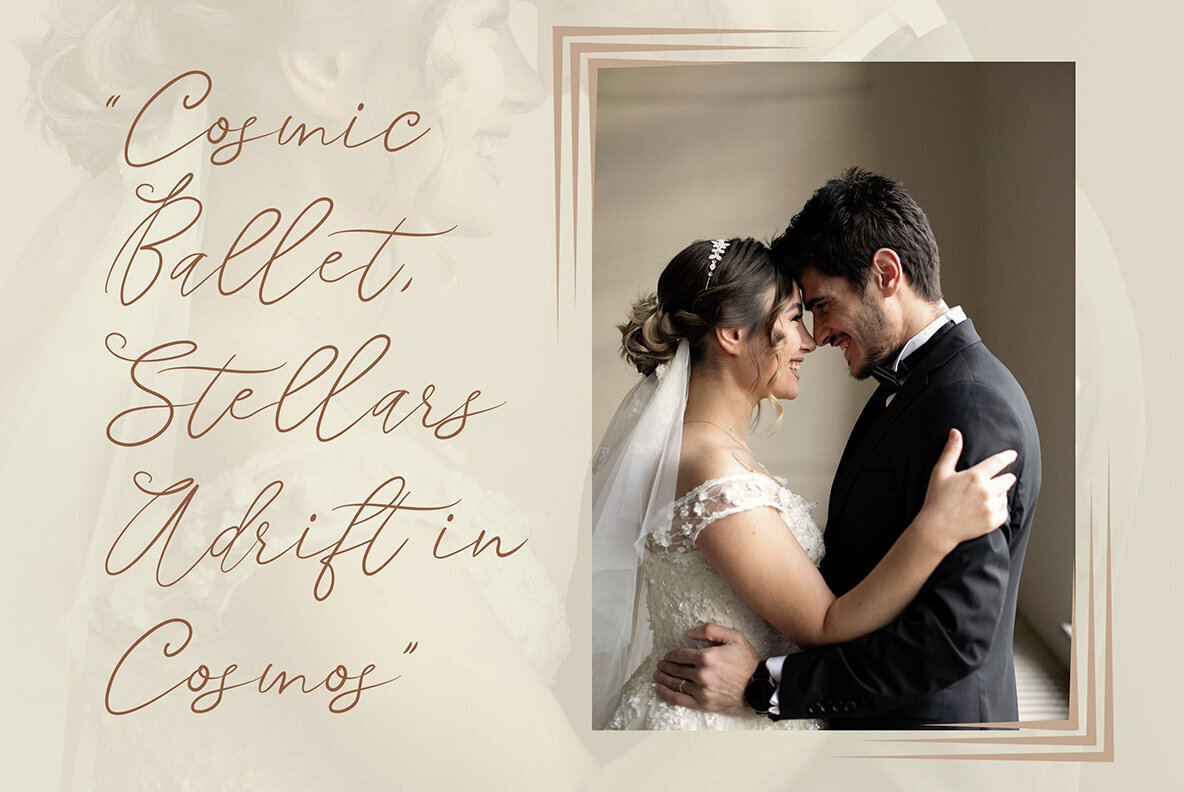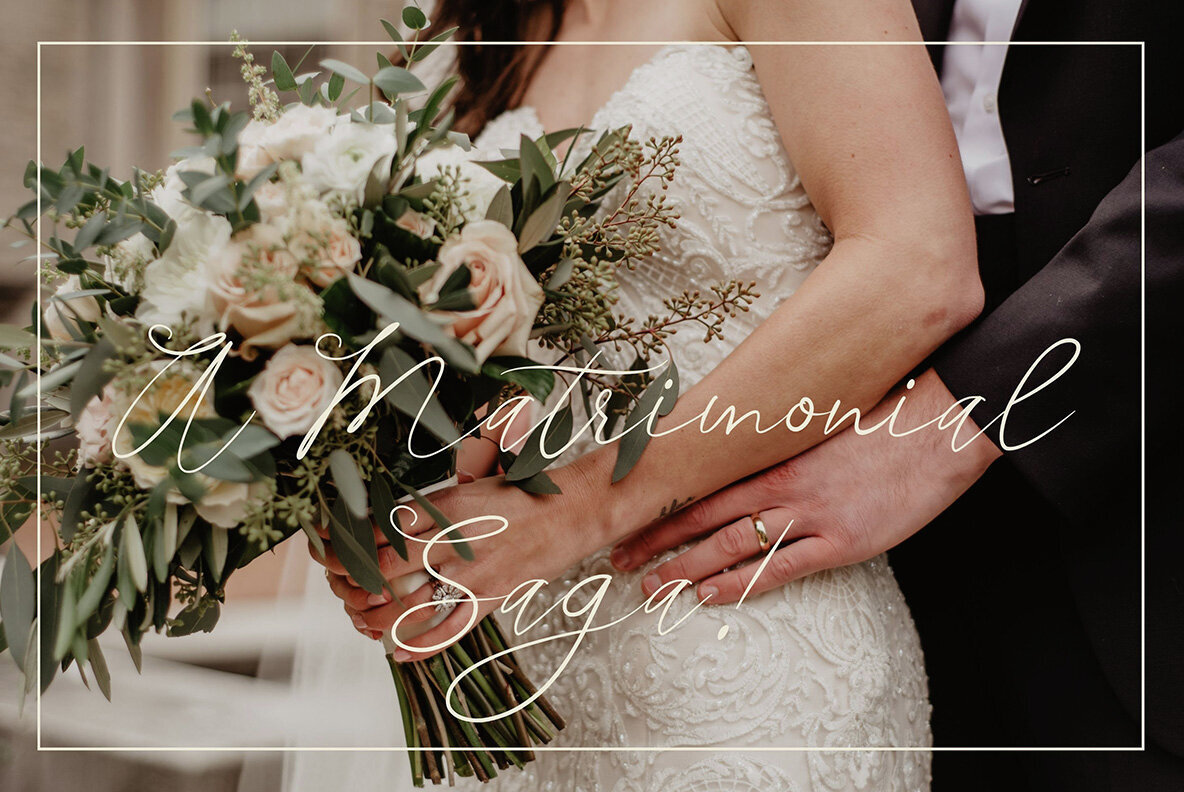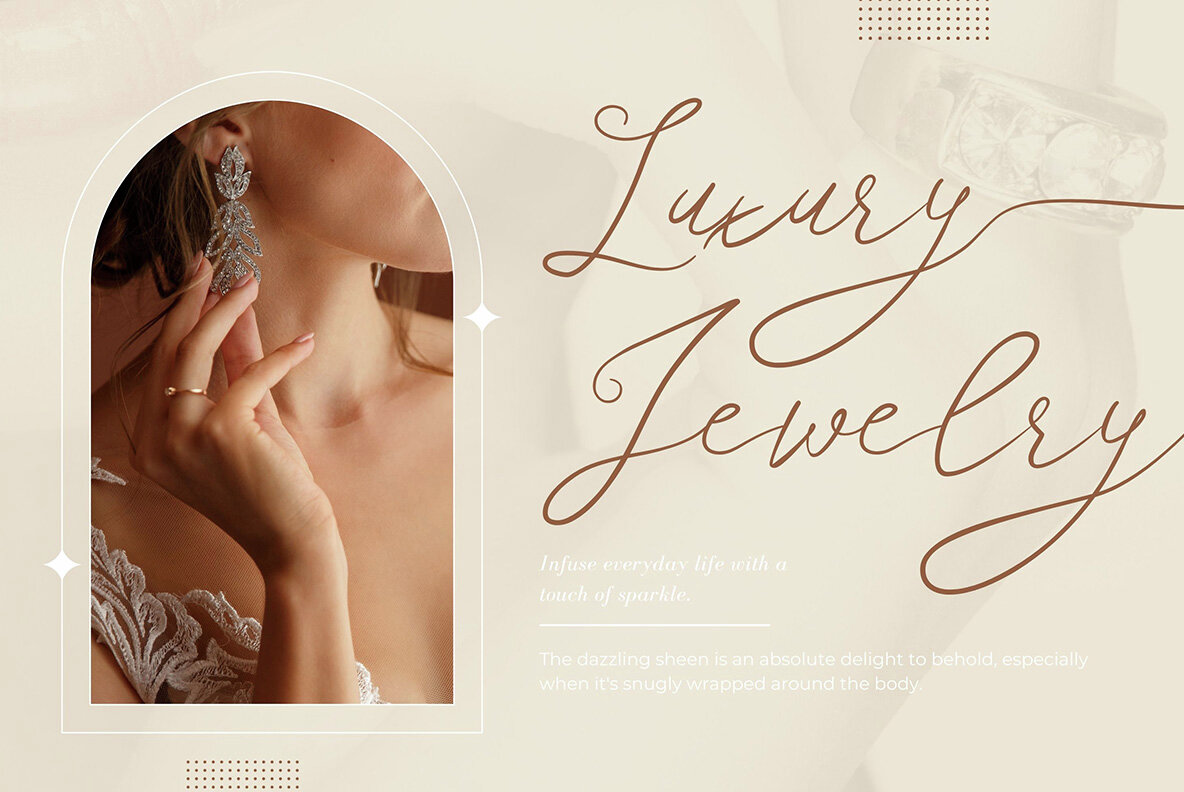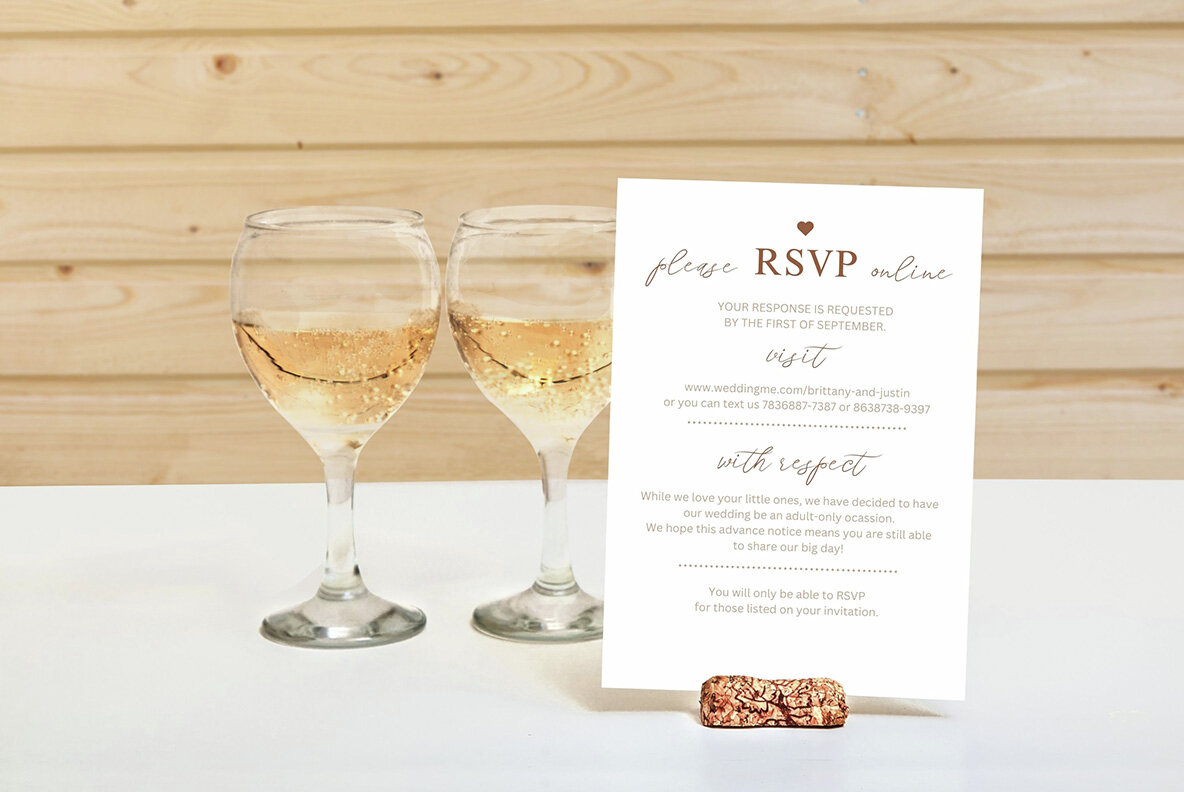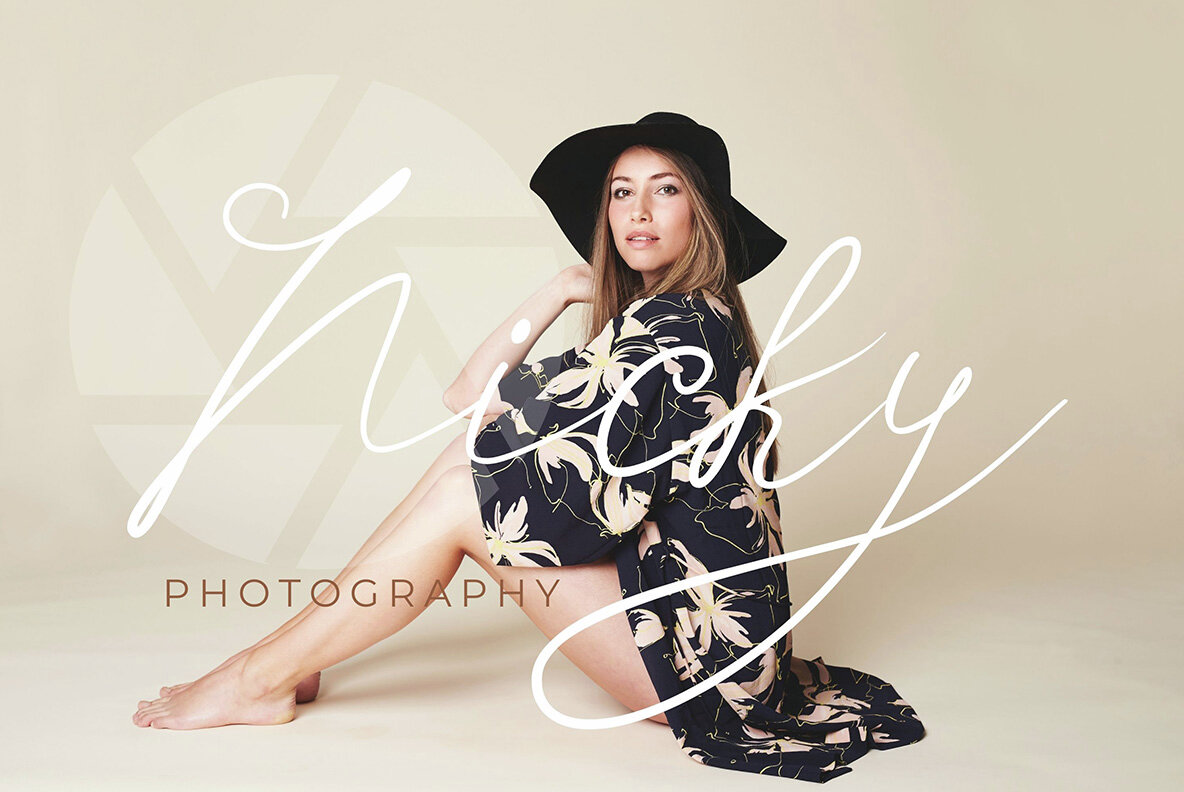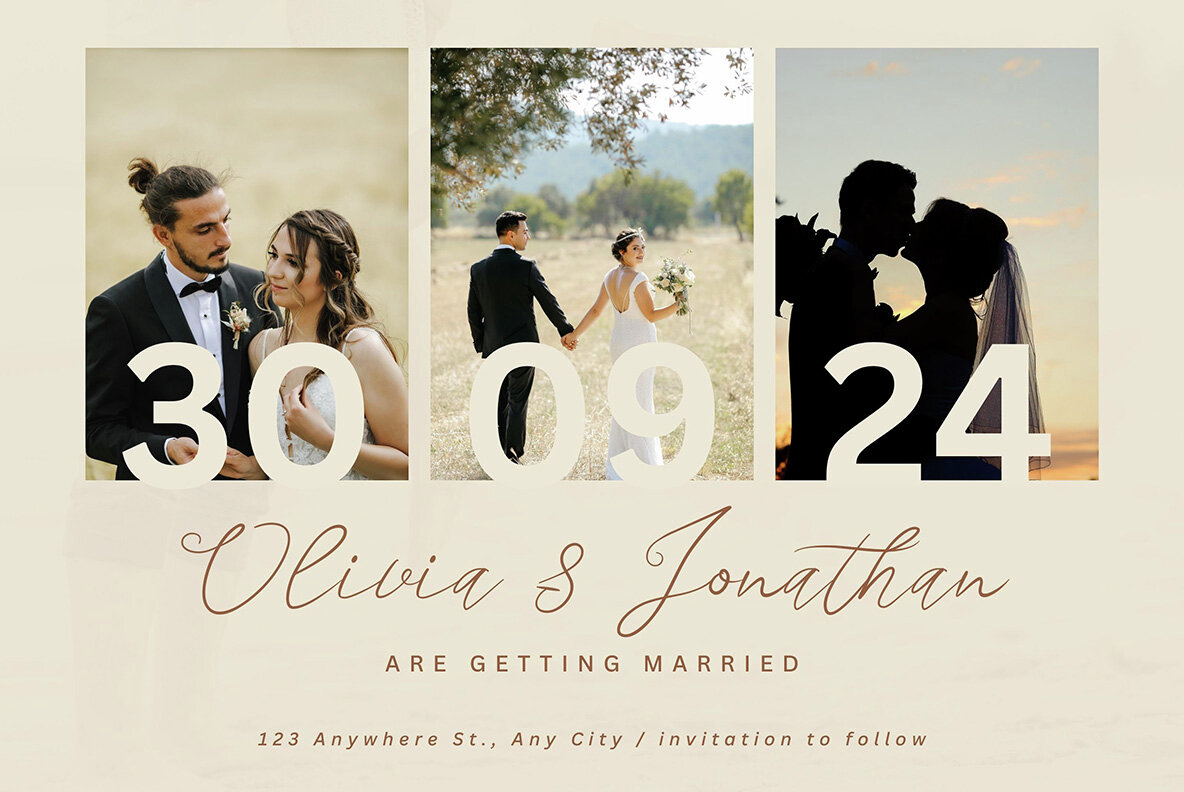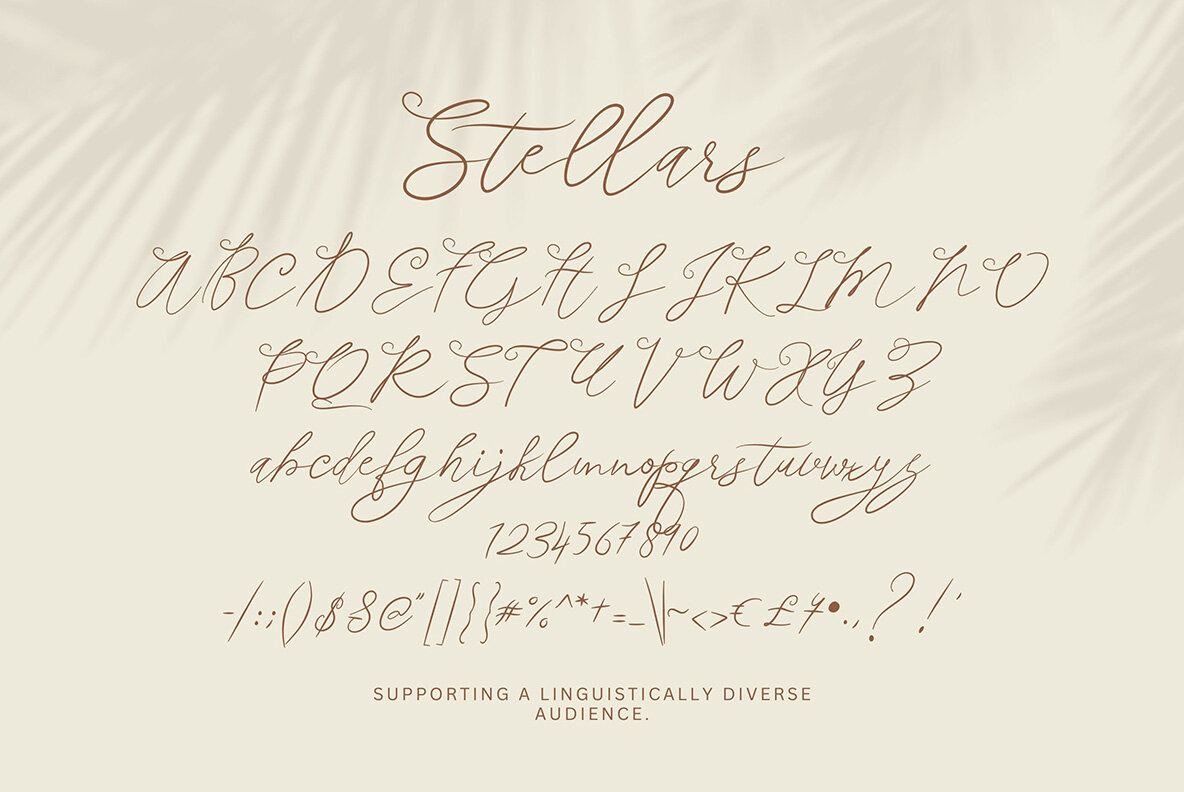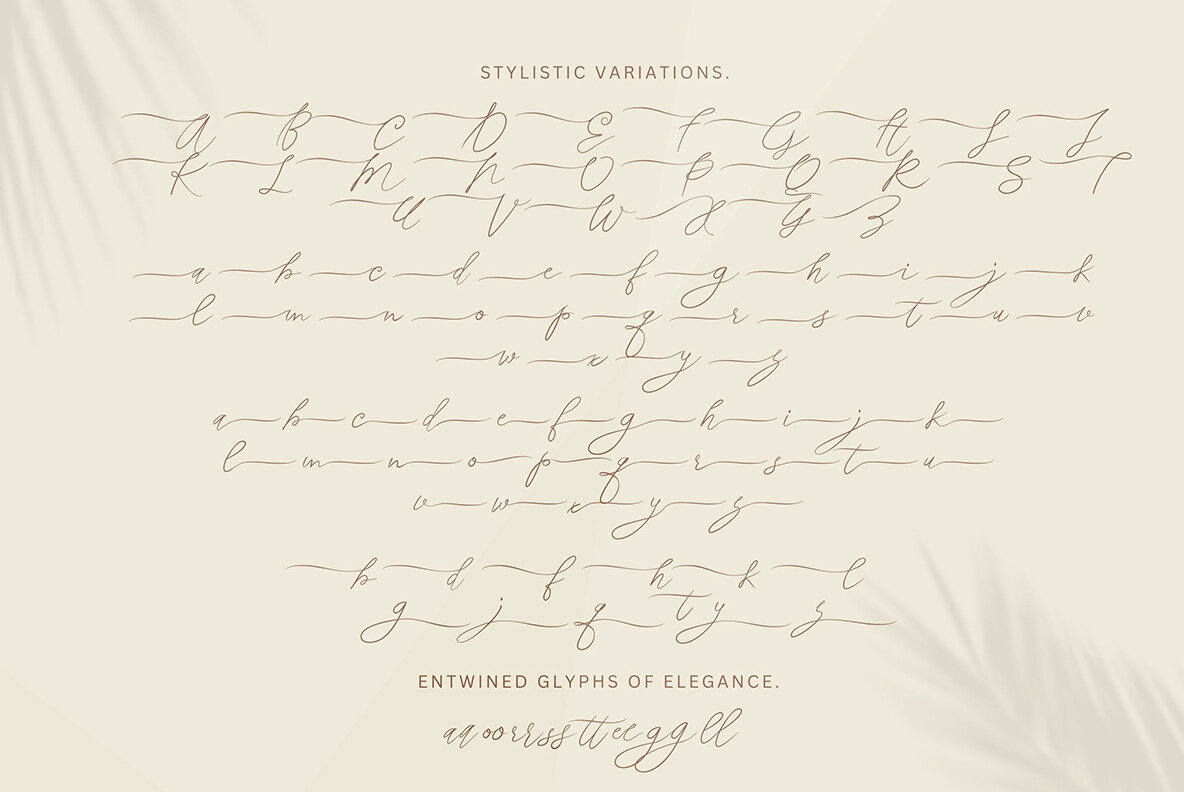
Stellars Font
Stellars Regular
Introducing Stellars, an exquisite handwritten script font that elevates designs with a blend of grace and contemporary flair. Crafted for creators seeking sophistication, Stellars seamlessly fuses beauty with modernity. Ideal for branding, invitations, social media, and more. Features: